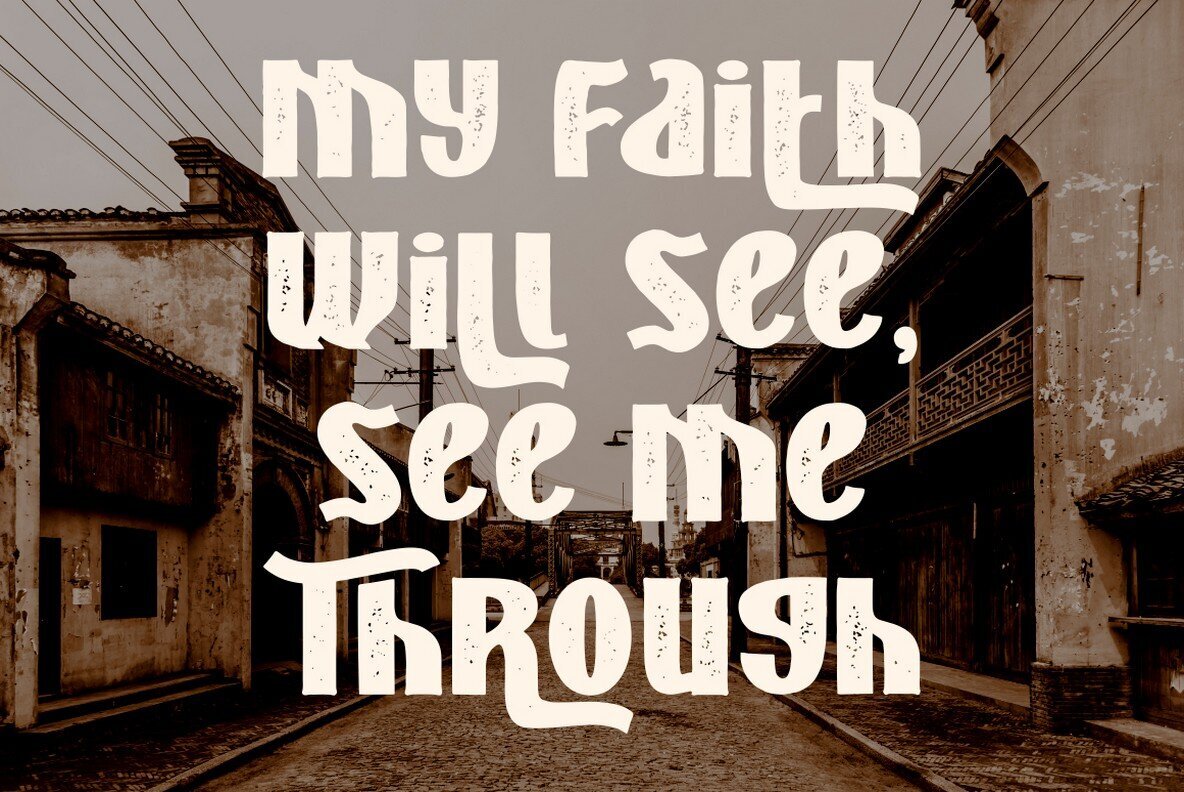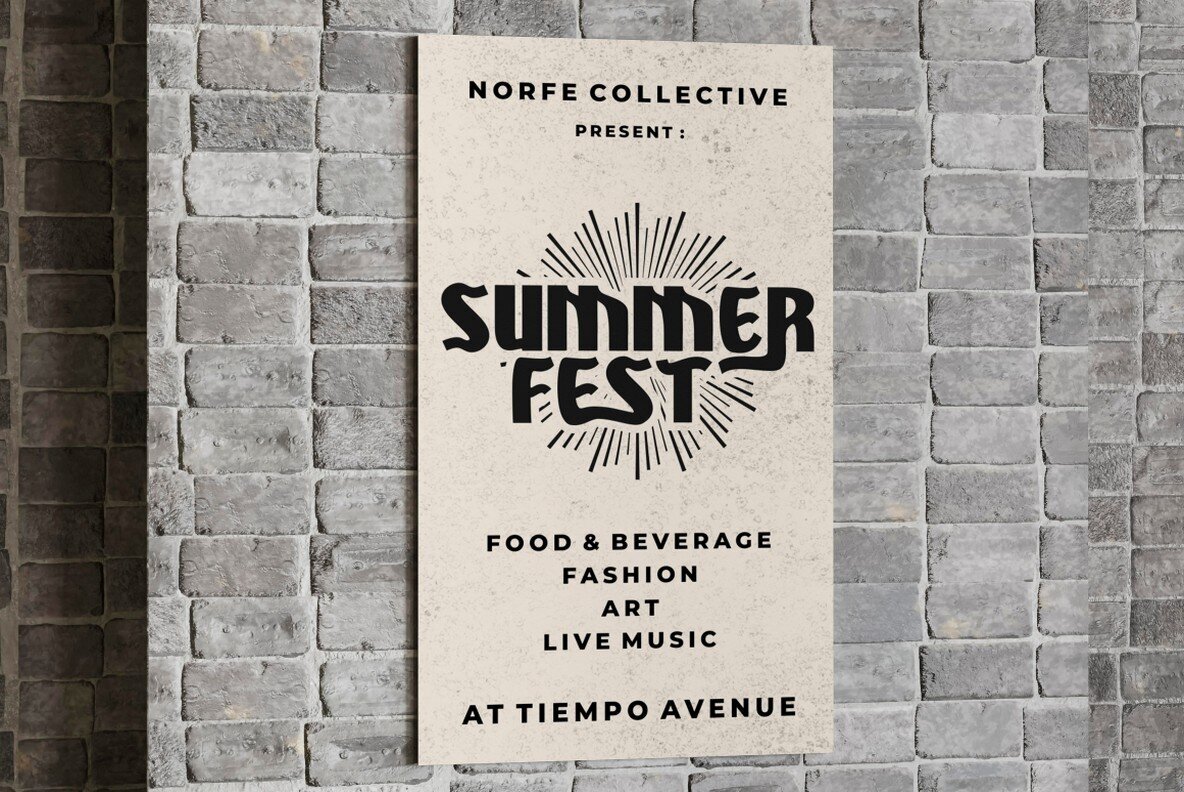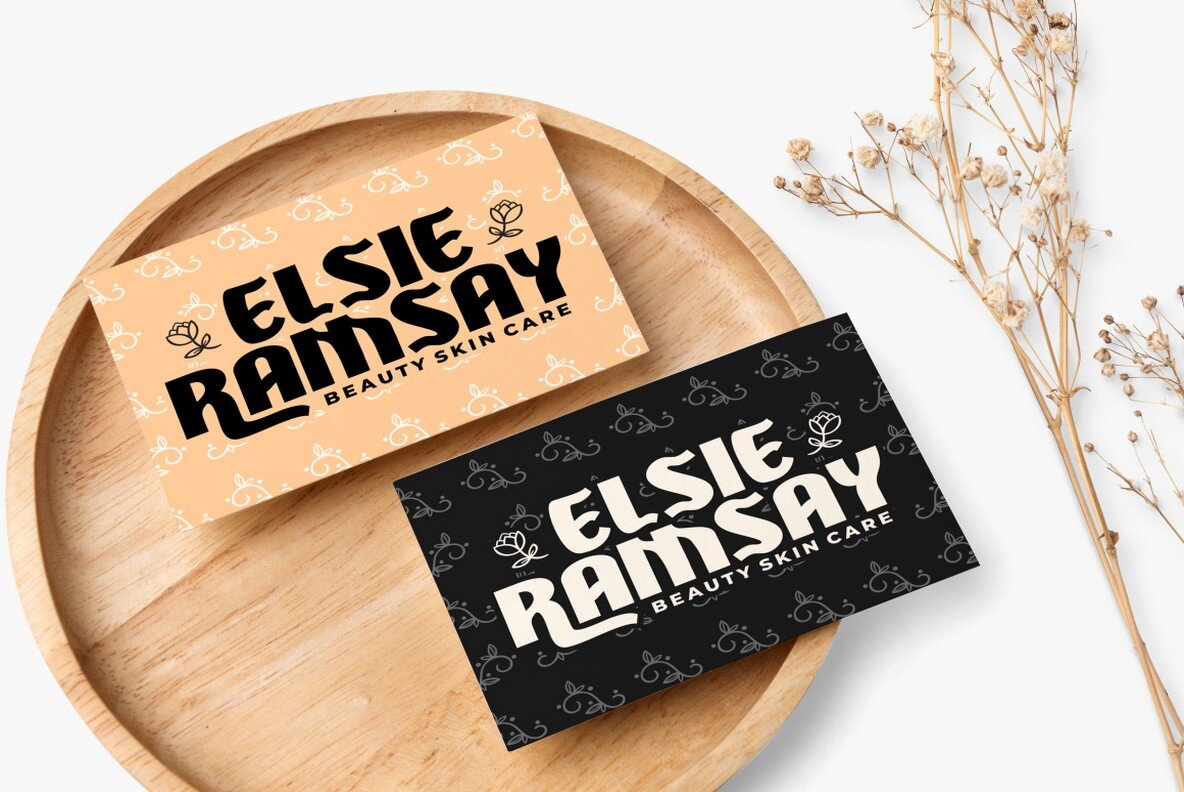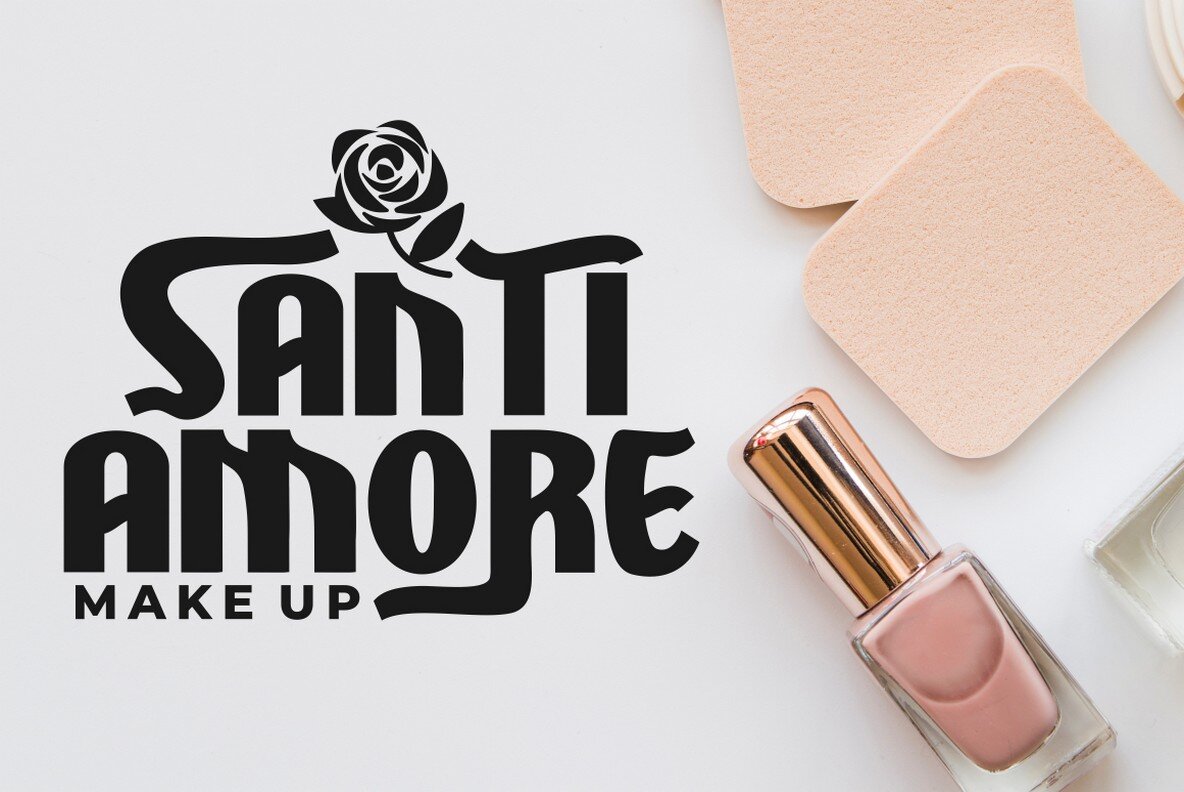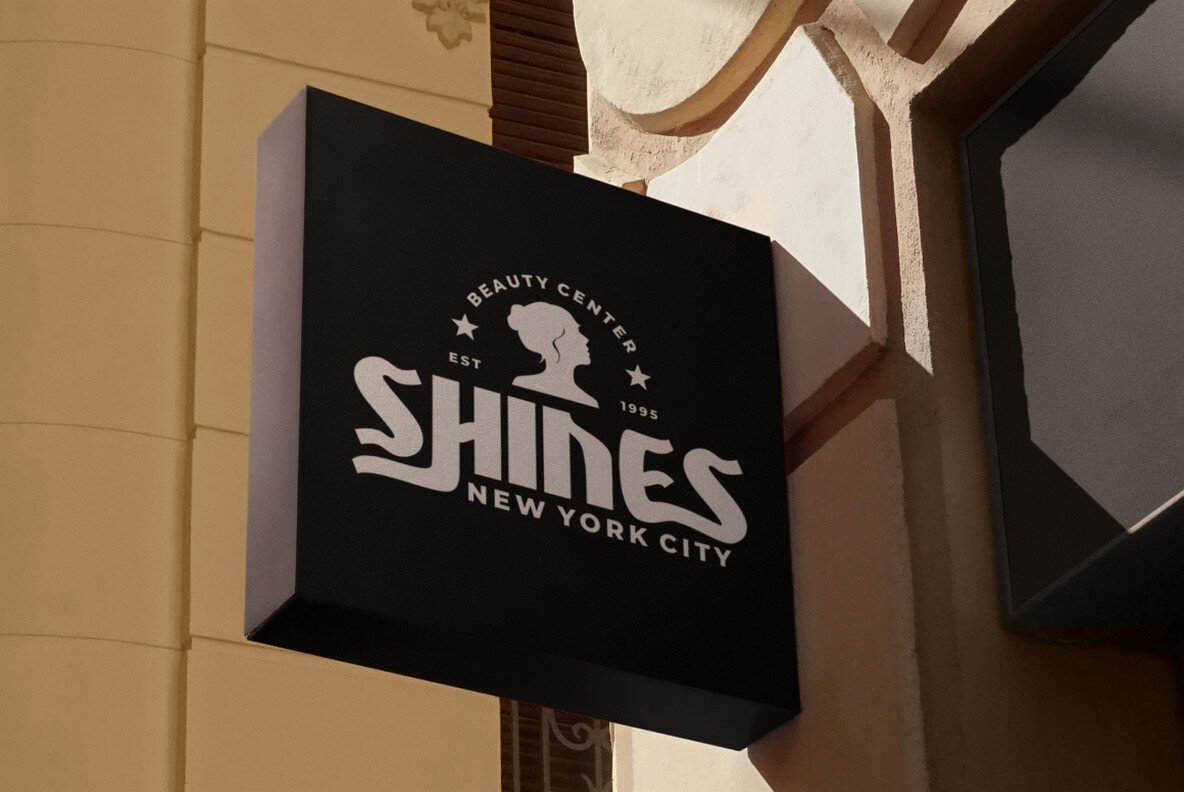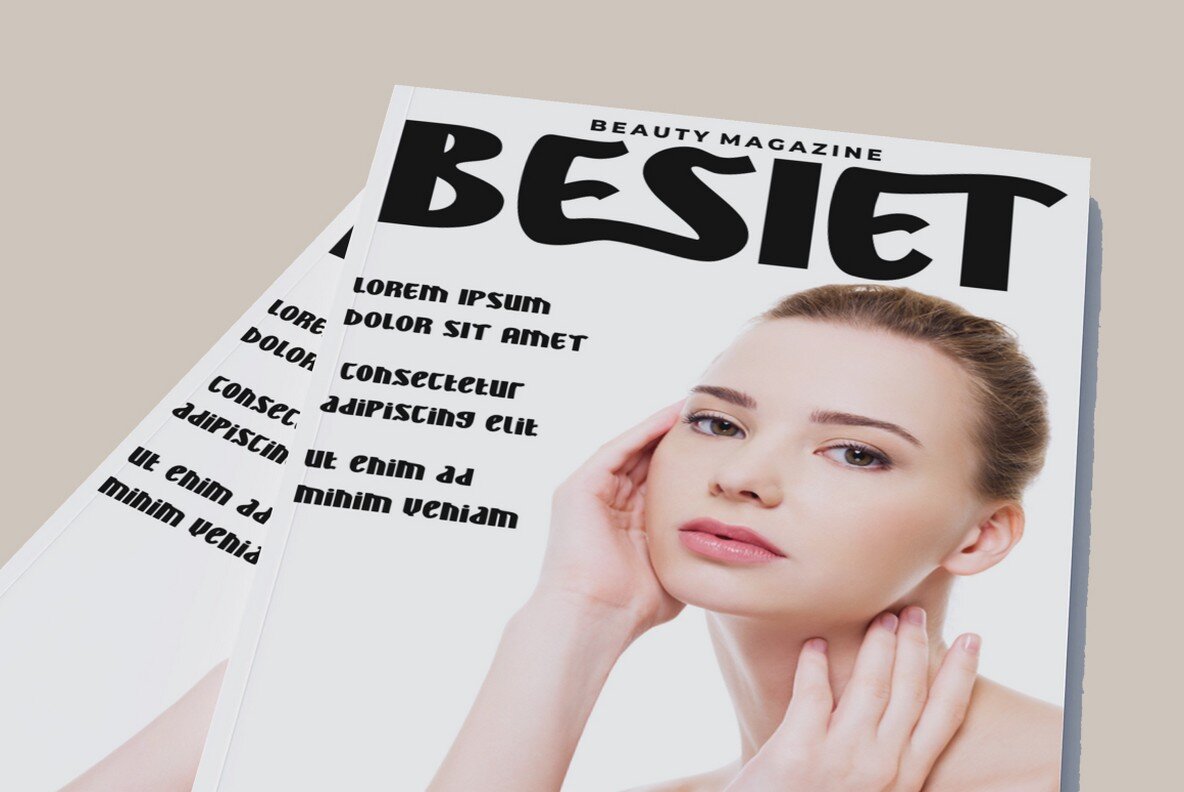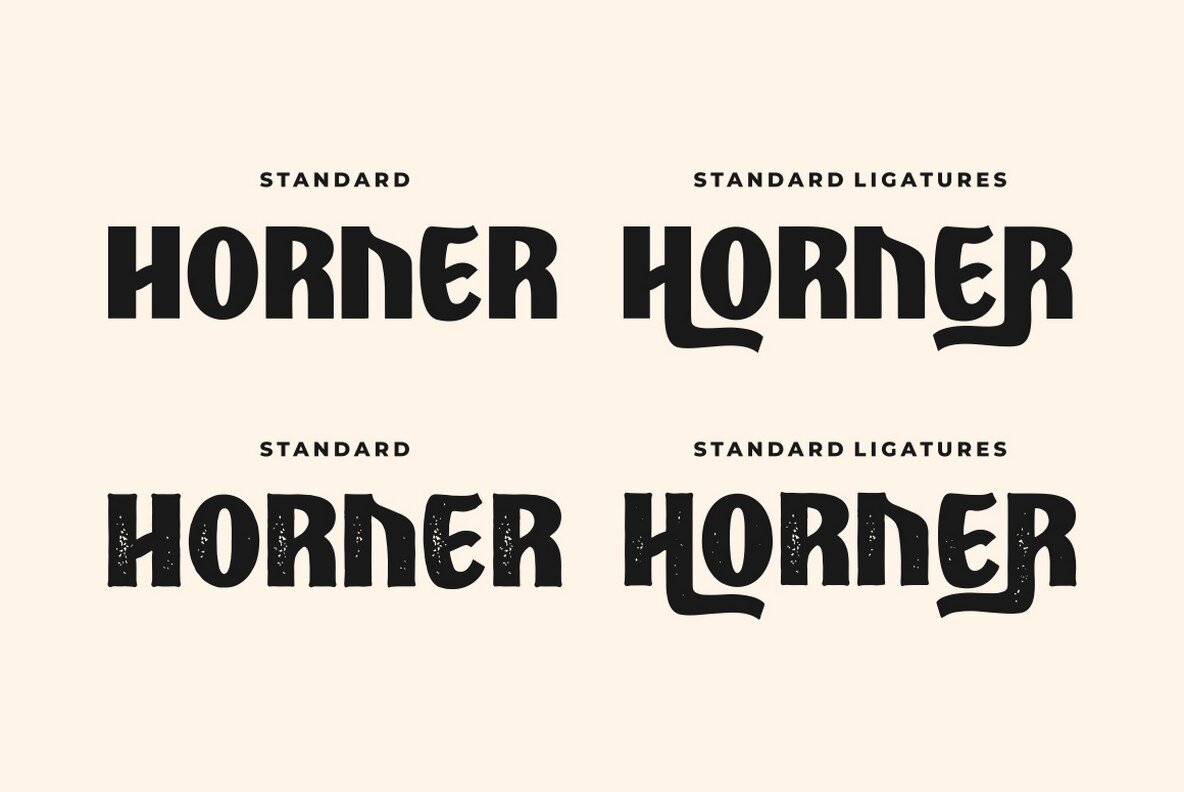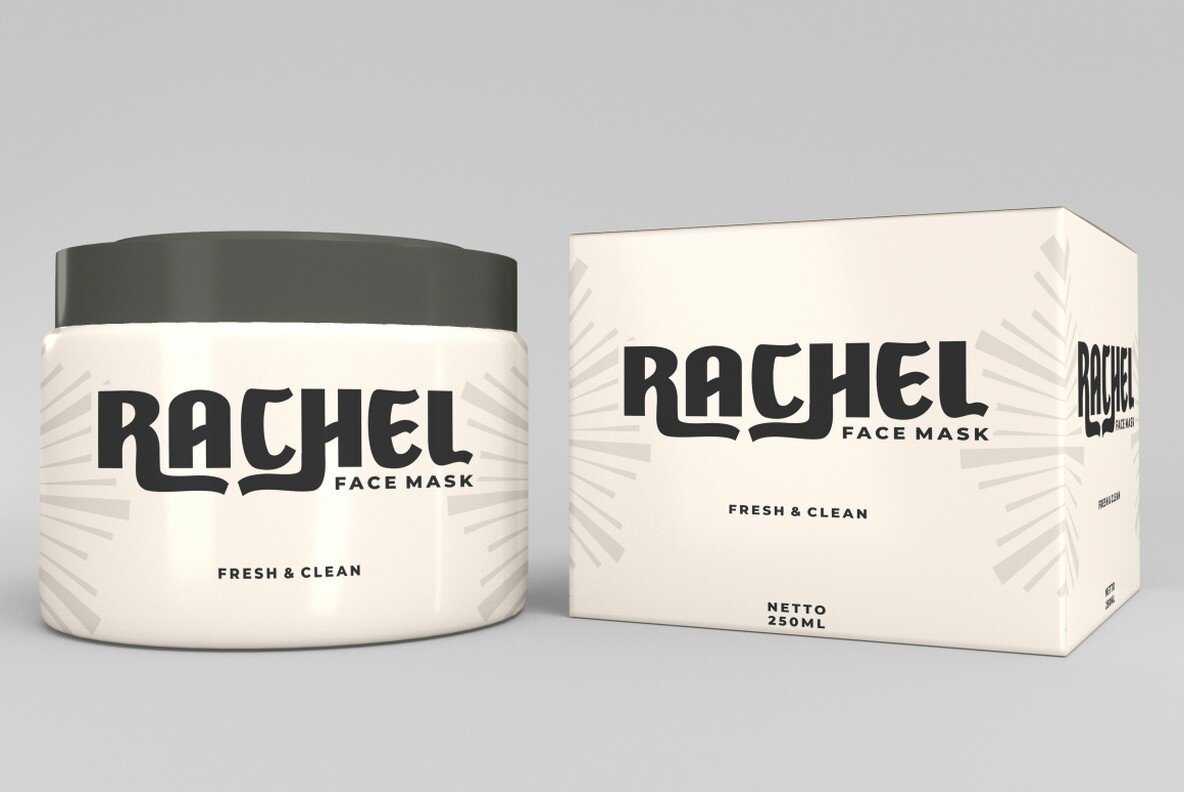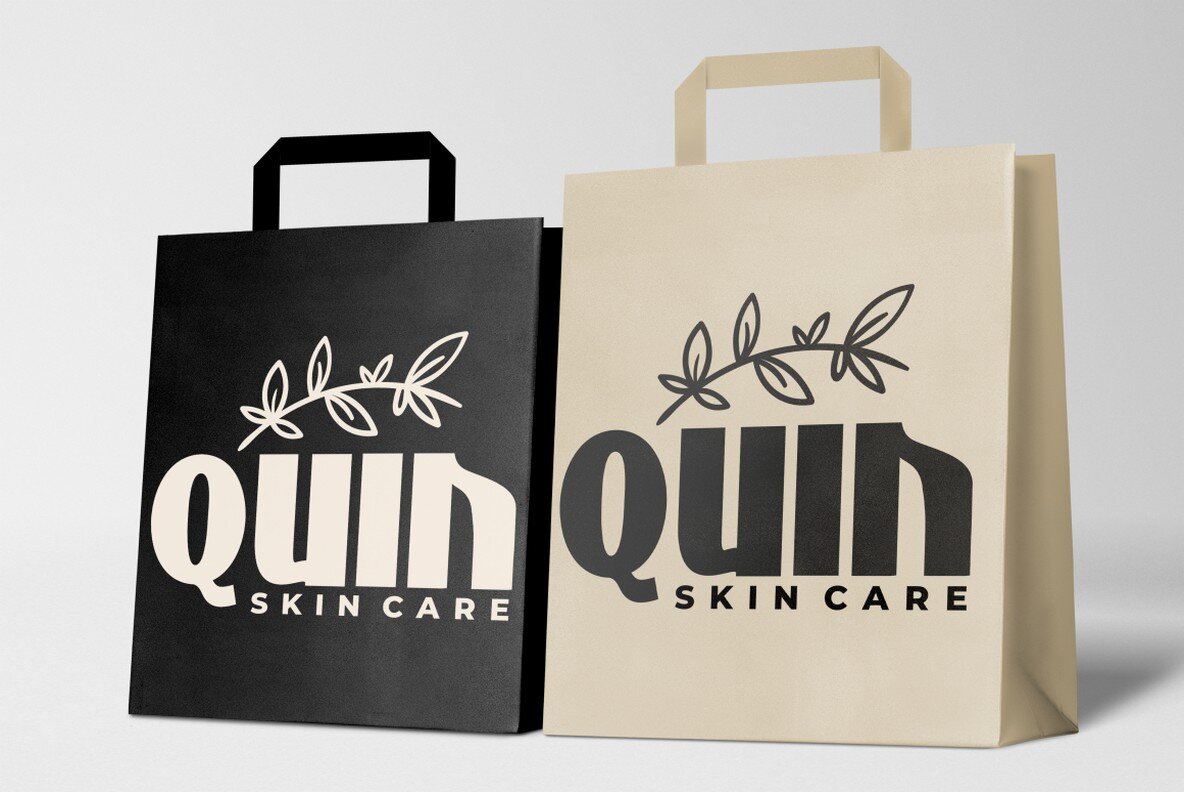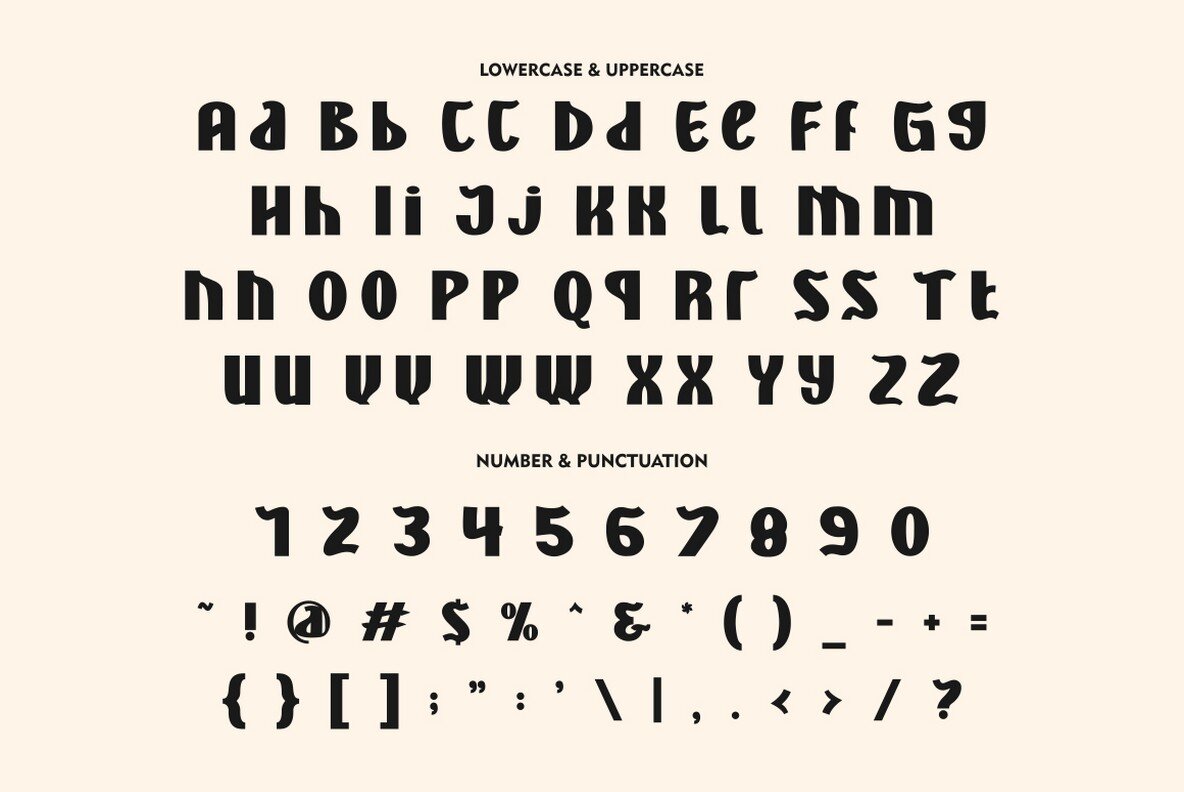
Alternoon Font
ALTERNOON Regular
ALTERNOON Texture
Alternoon embodies the elegance and playfulness of ligature fonts, drawing inspiration from well-balanced curves. Ideal for adding a vibrant, trendy touch, its blend of lively character and sophisticated ligature makes it a unique choice for design projects. Alternoon thrives in various creative contexts. Whether you need a distinct logo, engaging branding materials, or eye-catching titles, its versatility shines through. Alternoon is equally suited for greeting cards, invitation cards, advertisements, book titles, stickers, packaging, quotes, posters, and apparel.Alternoon: Ligature Display Font with Captivating Curves